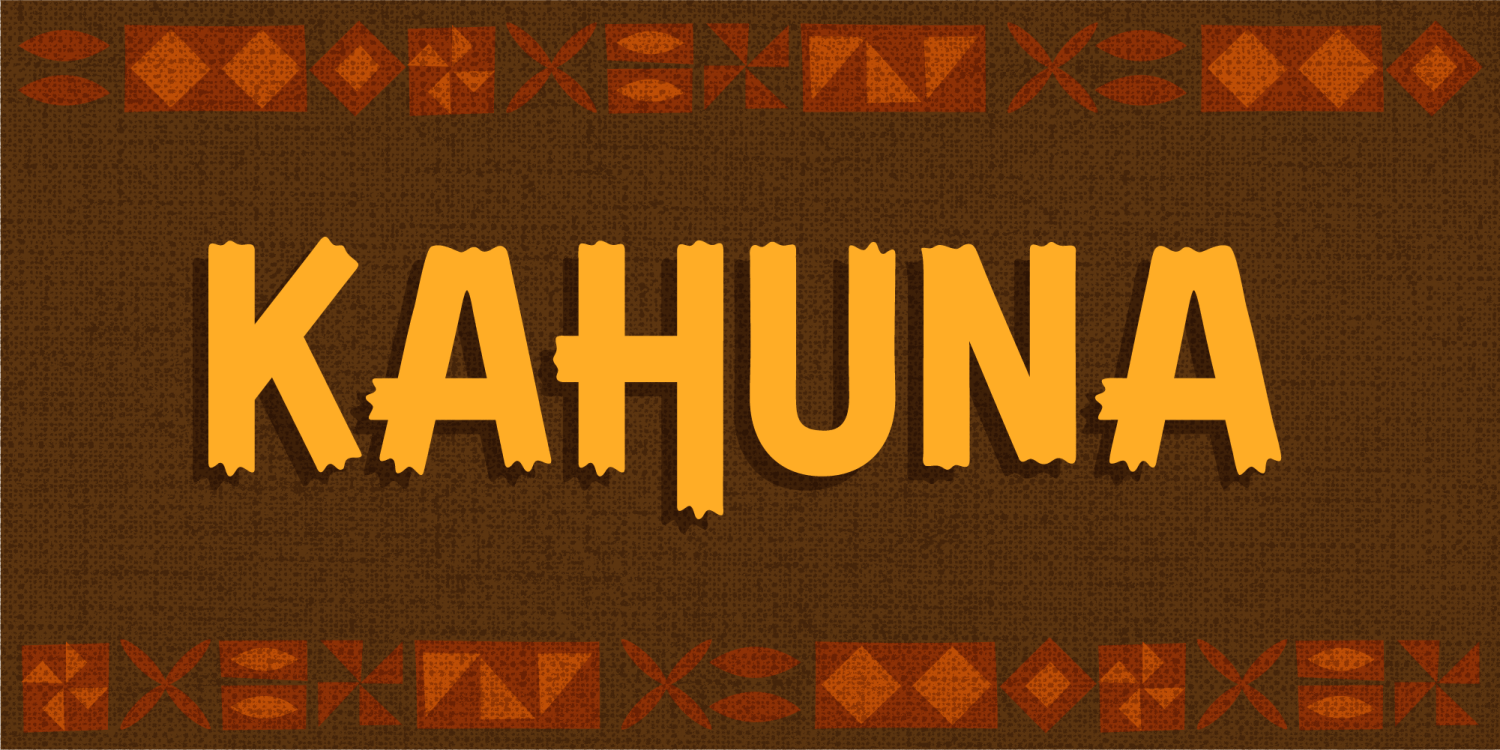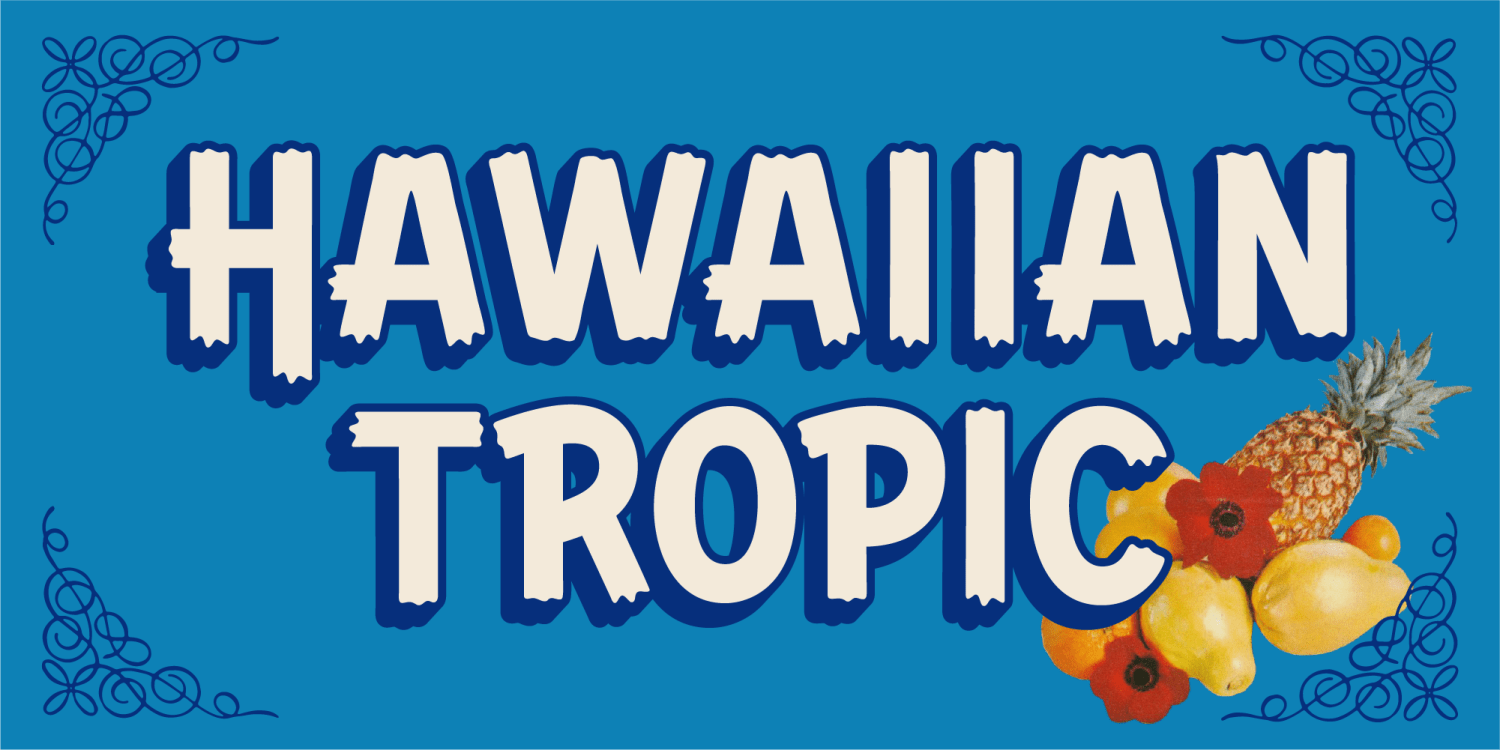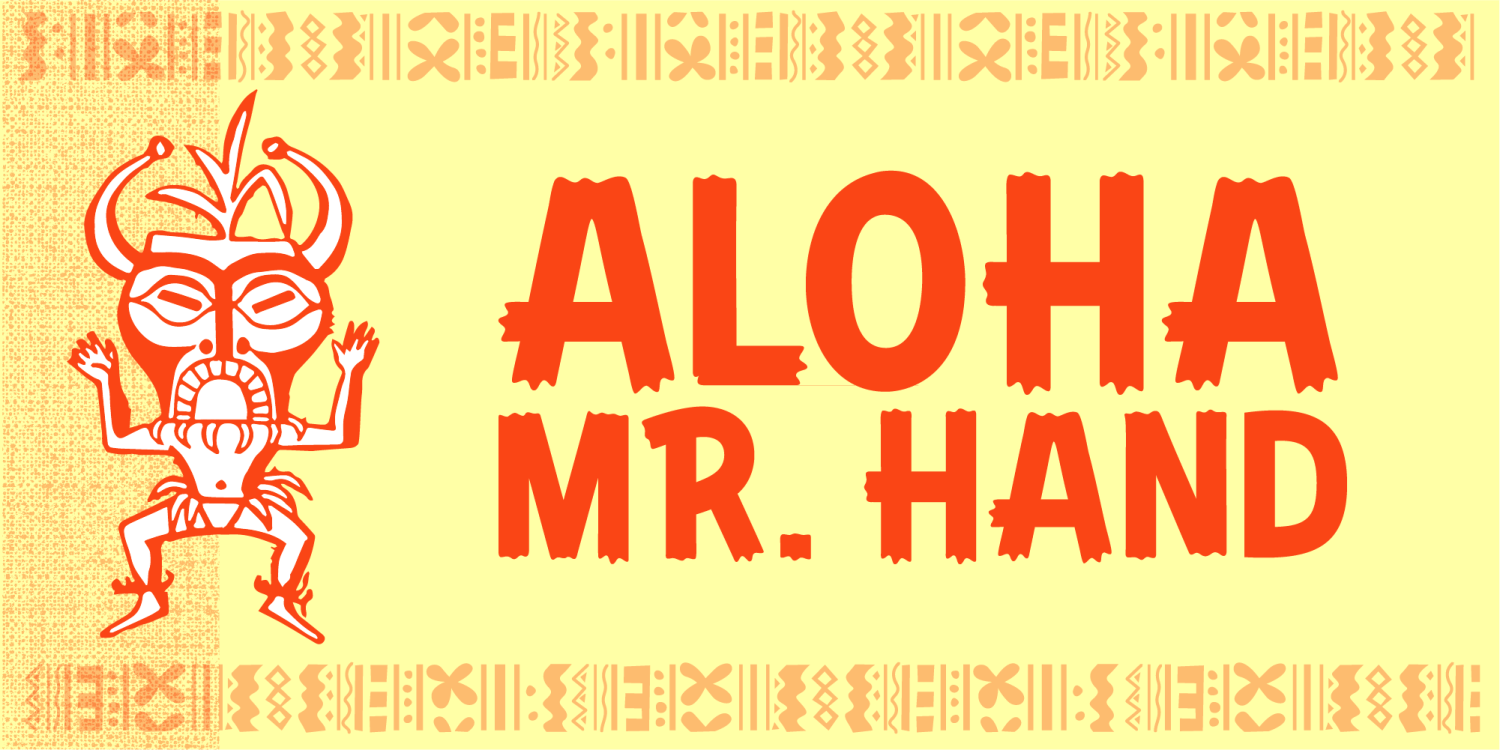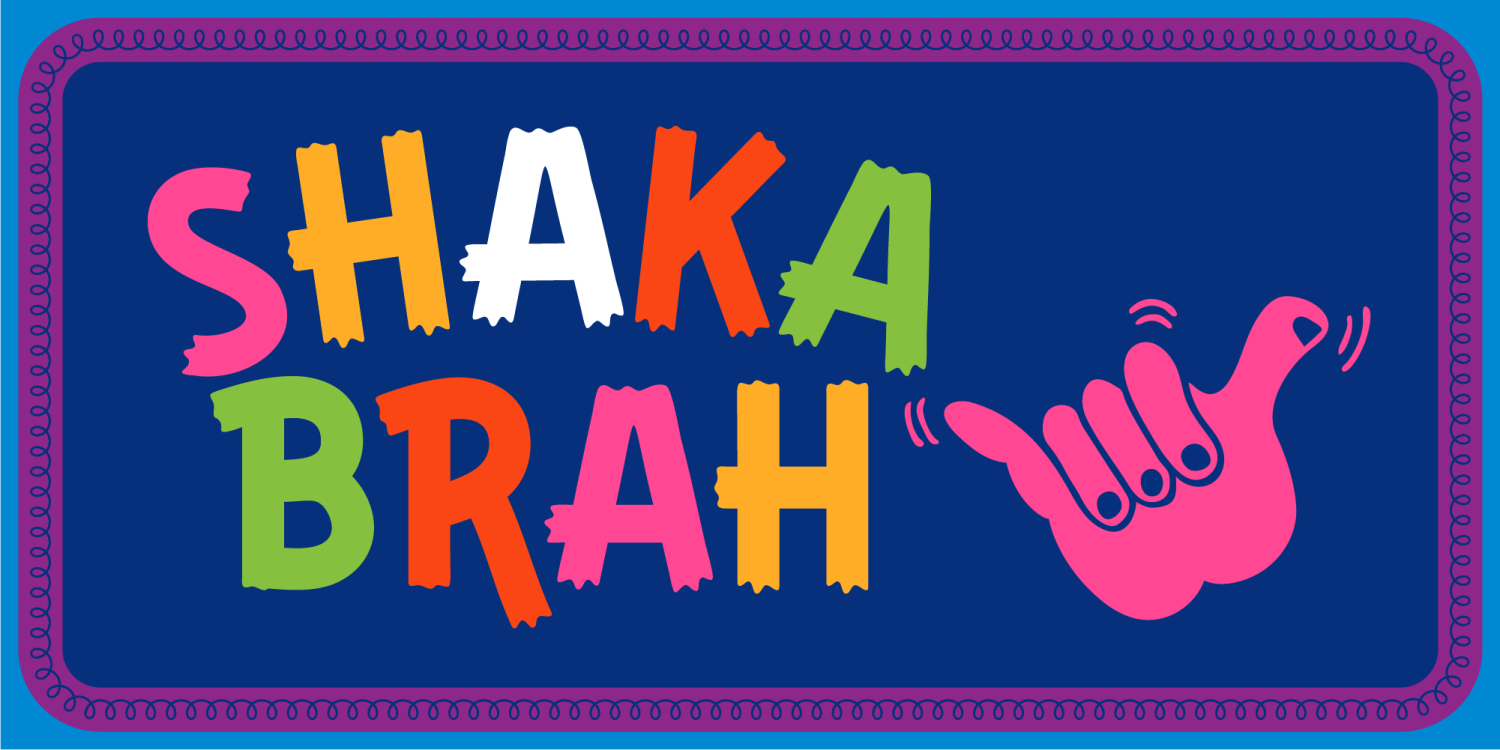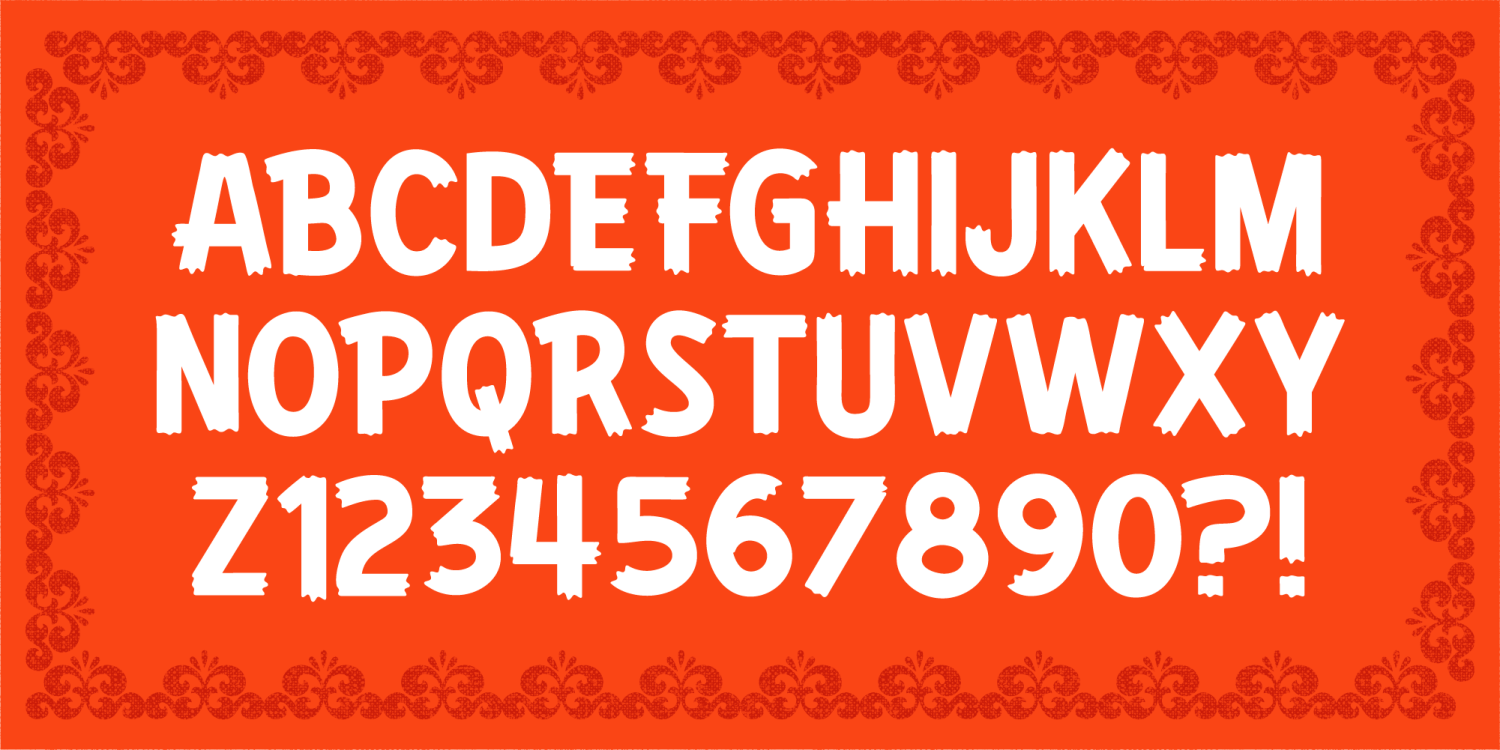
Imagine a whimsical luau where coconut cocktails flow, hula skirts sway, and ukulele tunes serenade the sunset. Now, picture those tropical vibes magically transforming into letters – that's Kahuna! With its retro Hawaiian charm, this font is your passport to a bygone era of tiki torches, surfboards, and a touch of aloha spirit. Get ready to hula into a typographic paradise with Kahuna, where every letter feels like a mini-vacation to the golden age of vintage cool!